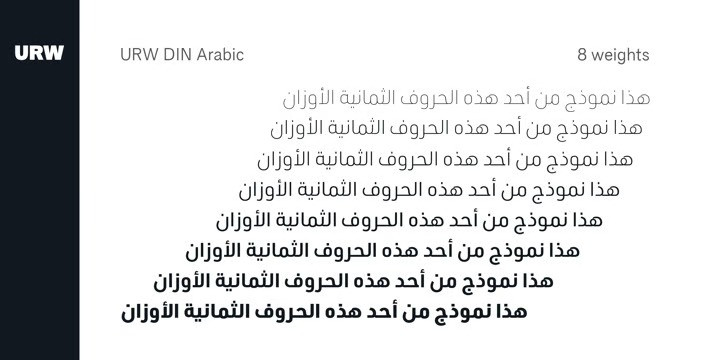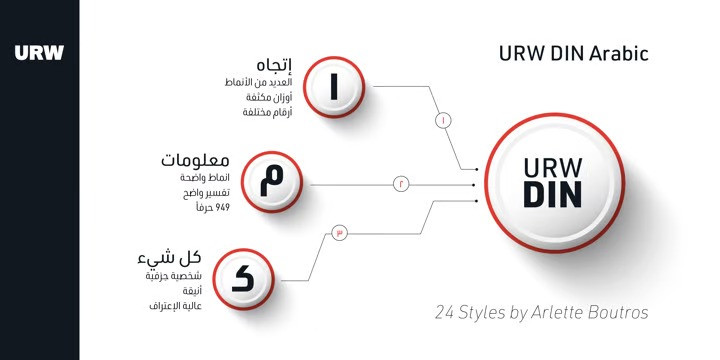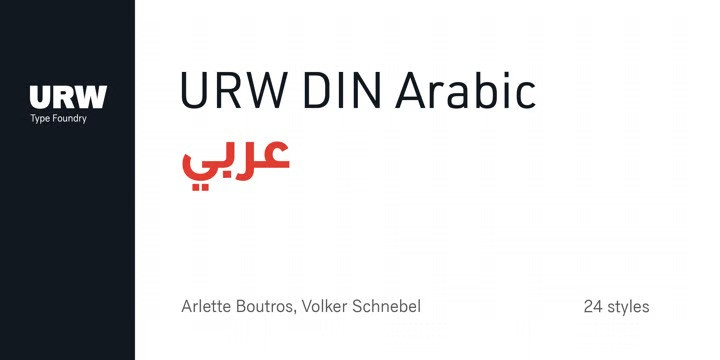
URW DIN Arabic Font
The digital outline fonts, DIN 1451 Fette Engschrift and Fette Mittelschrift were created by URW in 1984 and are the basis for all DIN font families. Both typefaces were designed for the URW SIGNUS system and were mainly used for the production of traffic signs. They have since become so popular that we have developed a complete Arabic DIN family together with Boutros Fonts. The Arabic characters have been designed to harmonize with our Latin URW DIN and come in 24 individual styles, which consist of 8 weights from Thin to Black and three different widths: Regular, Semi Condensed, and Condensed.